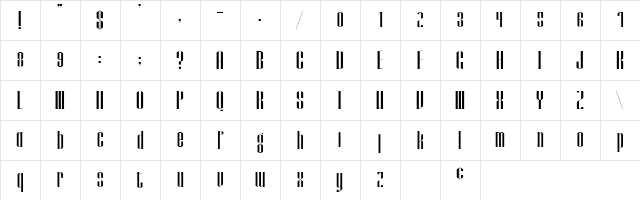
Papercut Regular Free Font
Papercut Regular
Design Context for Papercut
Papercut is a composed and adaptable typeface that performs quietly and consistently across a wide range of design contexts.